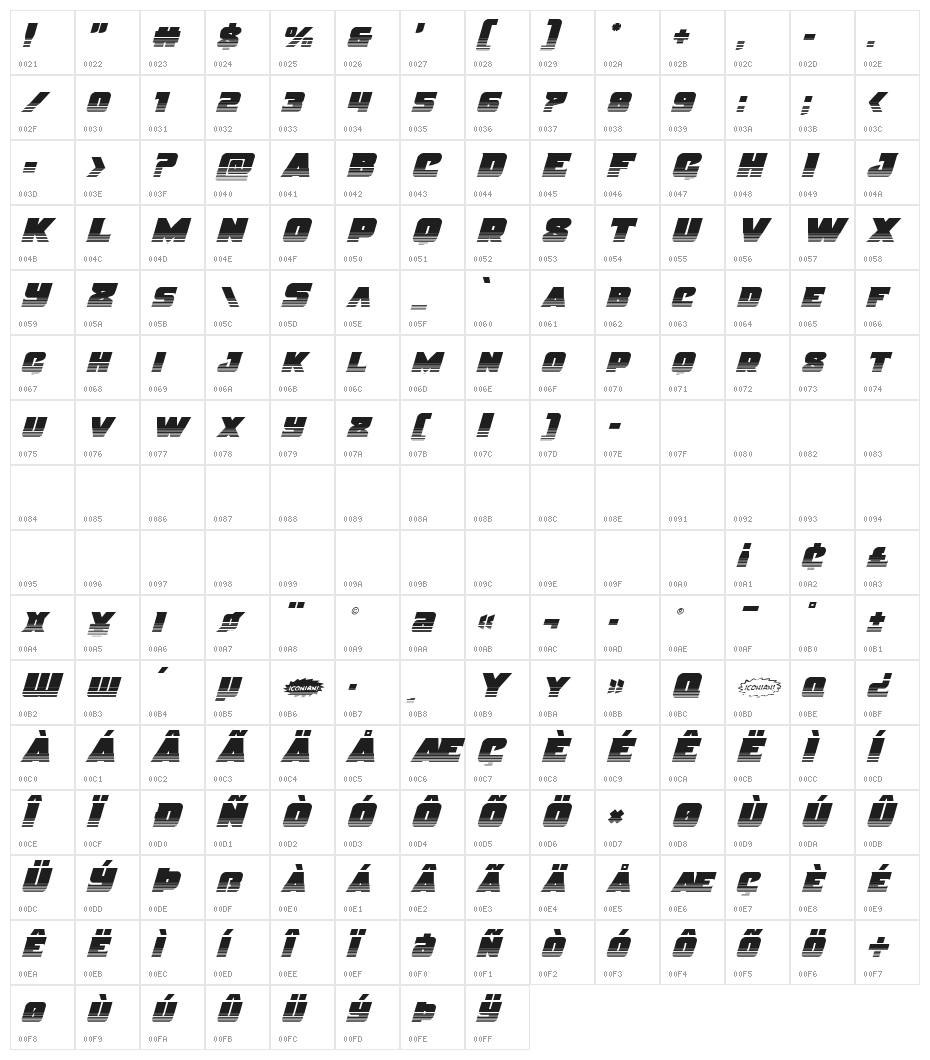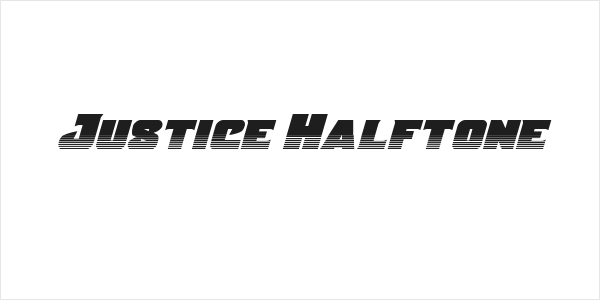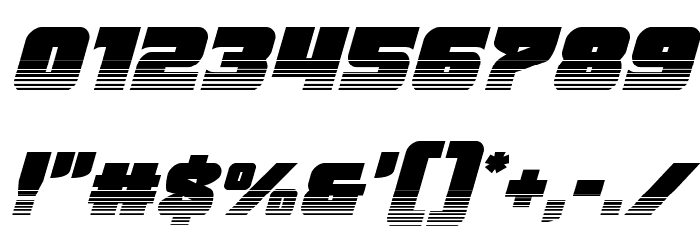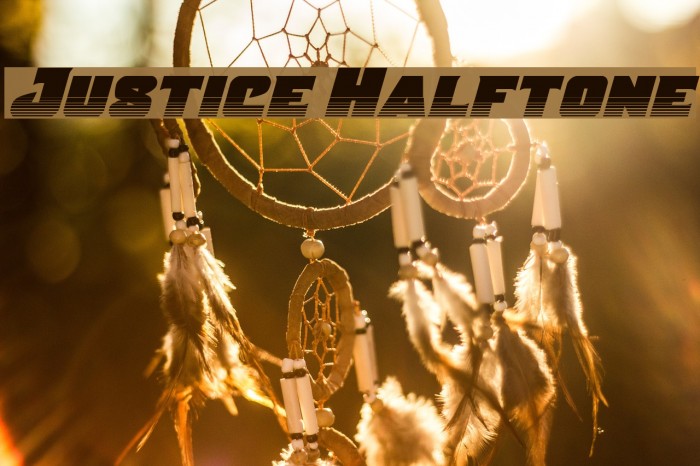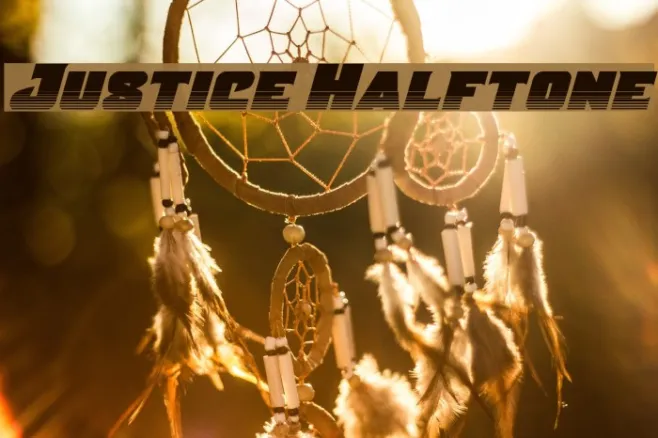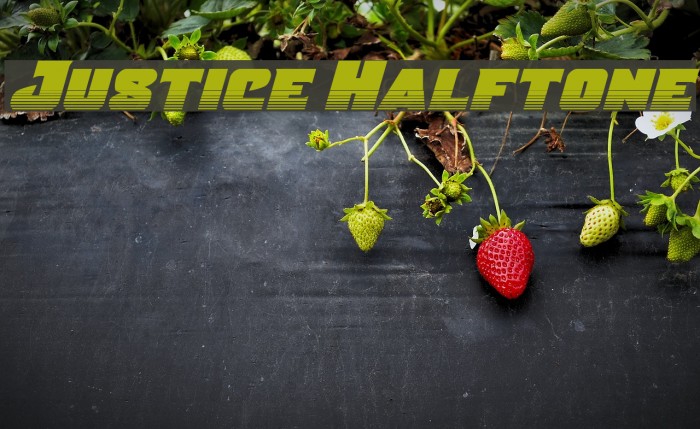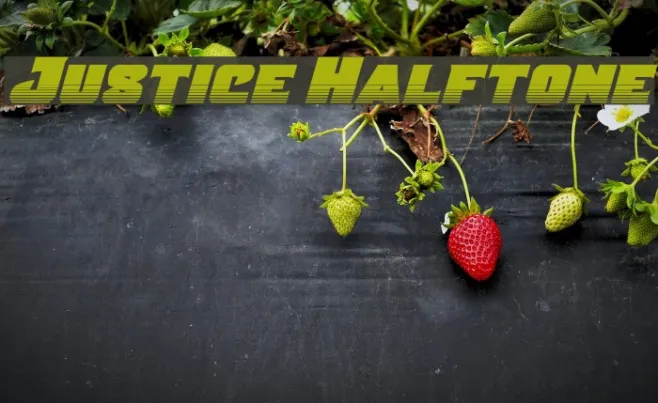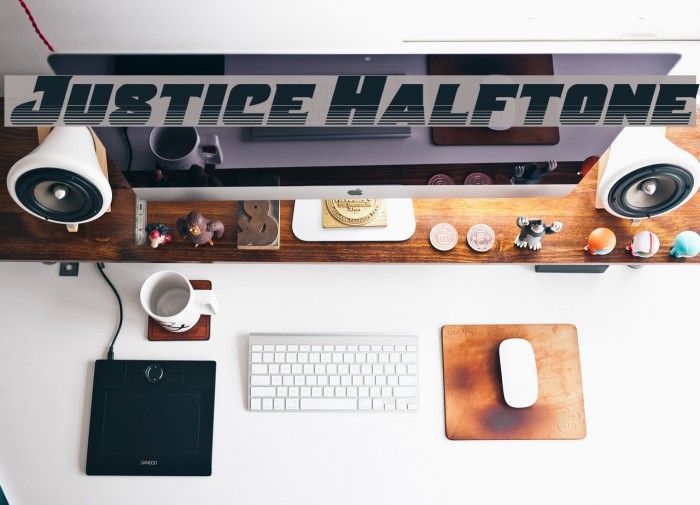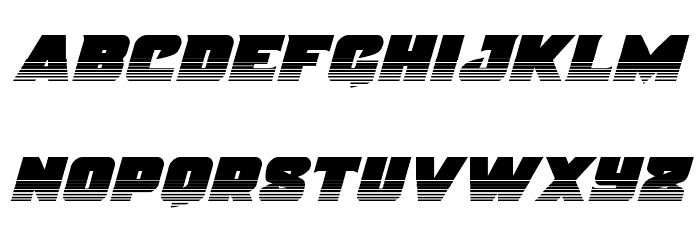
Justice Halftone Font
Justice Halftone Description
This font features a bold, dynamic style with a distinct halftone effect that gives it a sense of movement and energy. The characters are wide and blocky, with a strong presence that makes them stand out. The halftone pattern is integrated into each letter, creating a unique visual texture that adds depth and interest. This design is particularly effective for creating eye-catching headlines or titles. The font's modern and edgy appearance makes it suitable for projects that require a bold statement or a futuristic feel.
| Proposed Projects | Ideal for posters, album covers, sports branding, and any project needing a bold, modern look. |